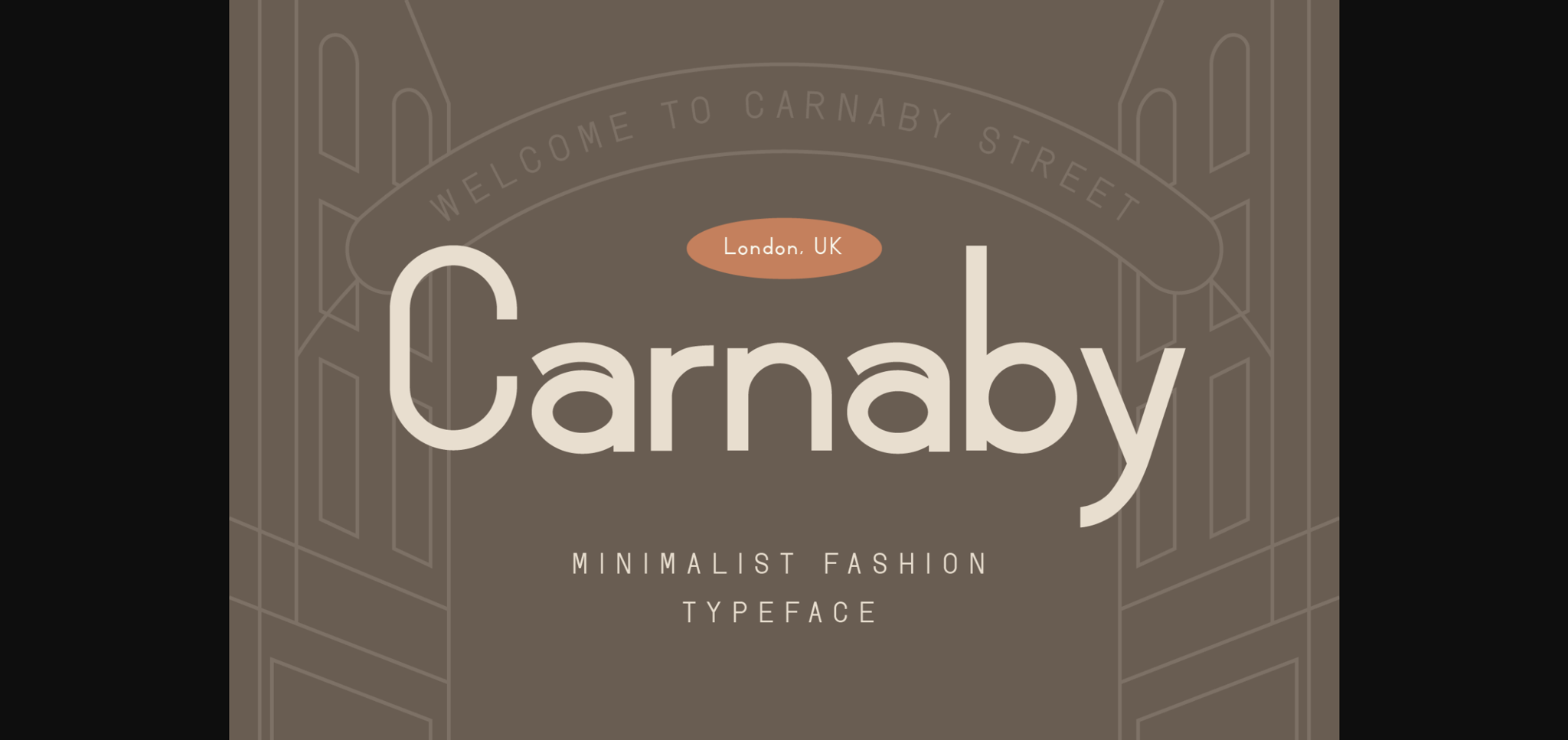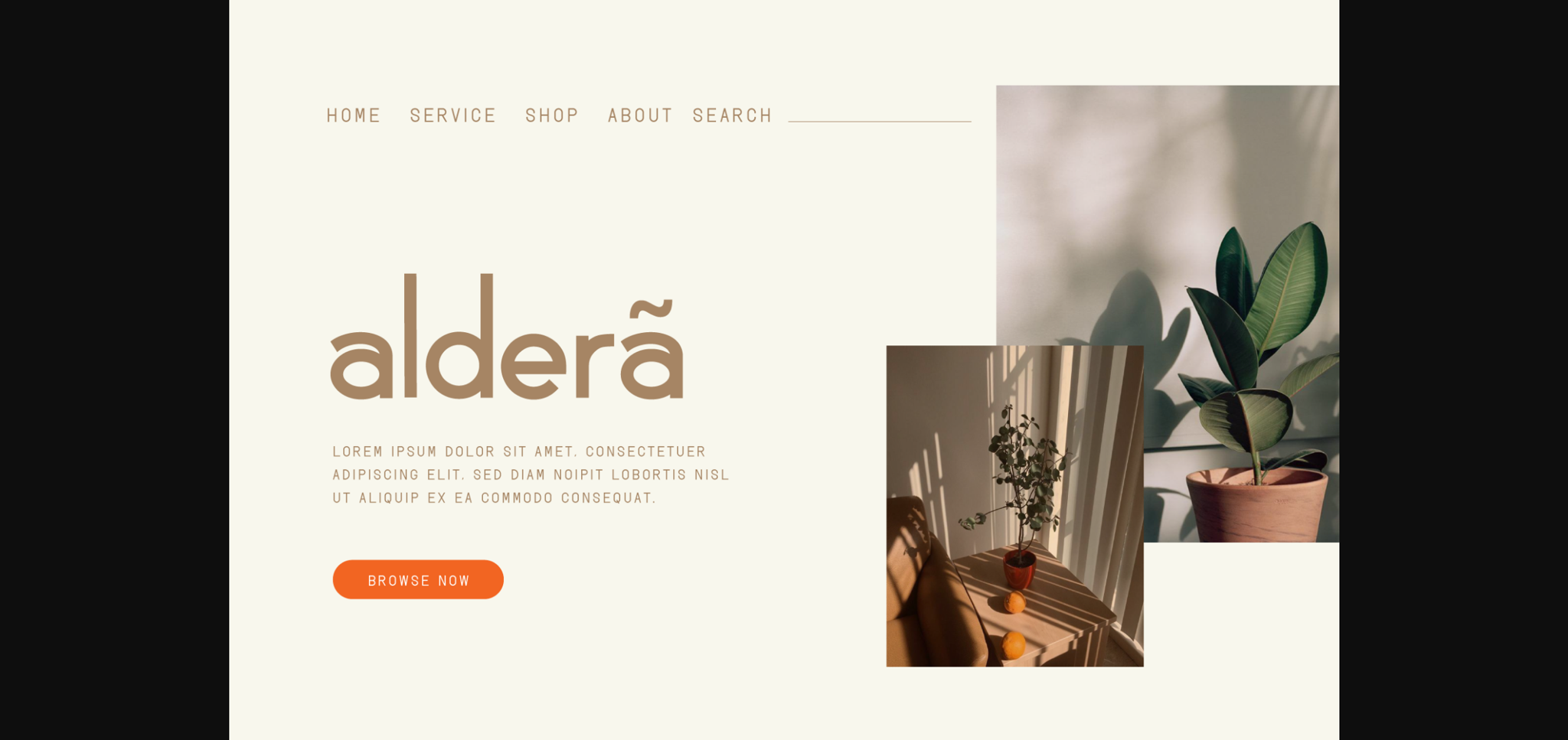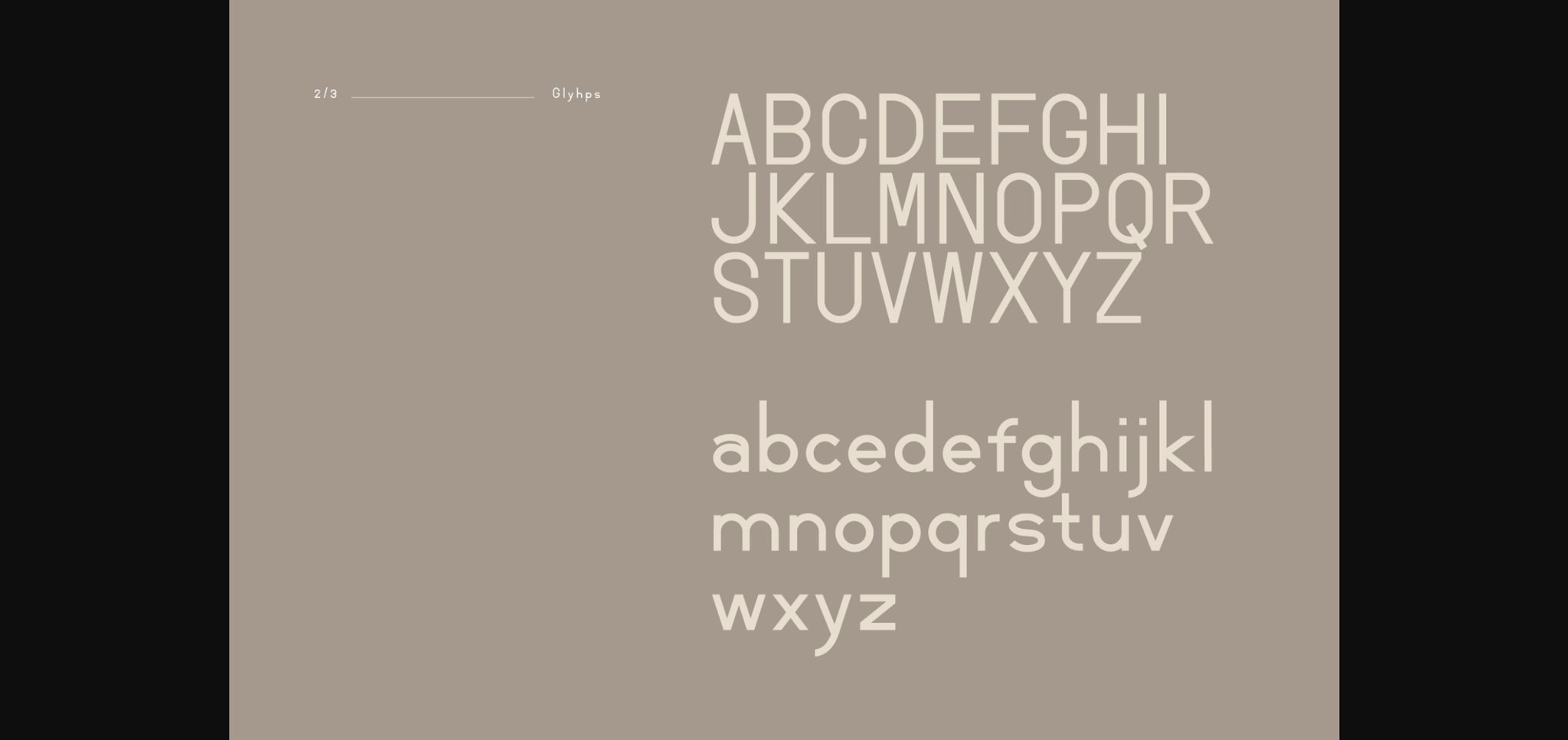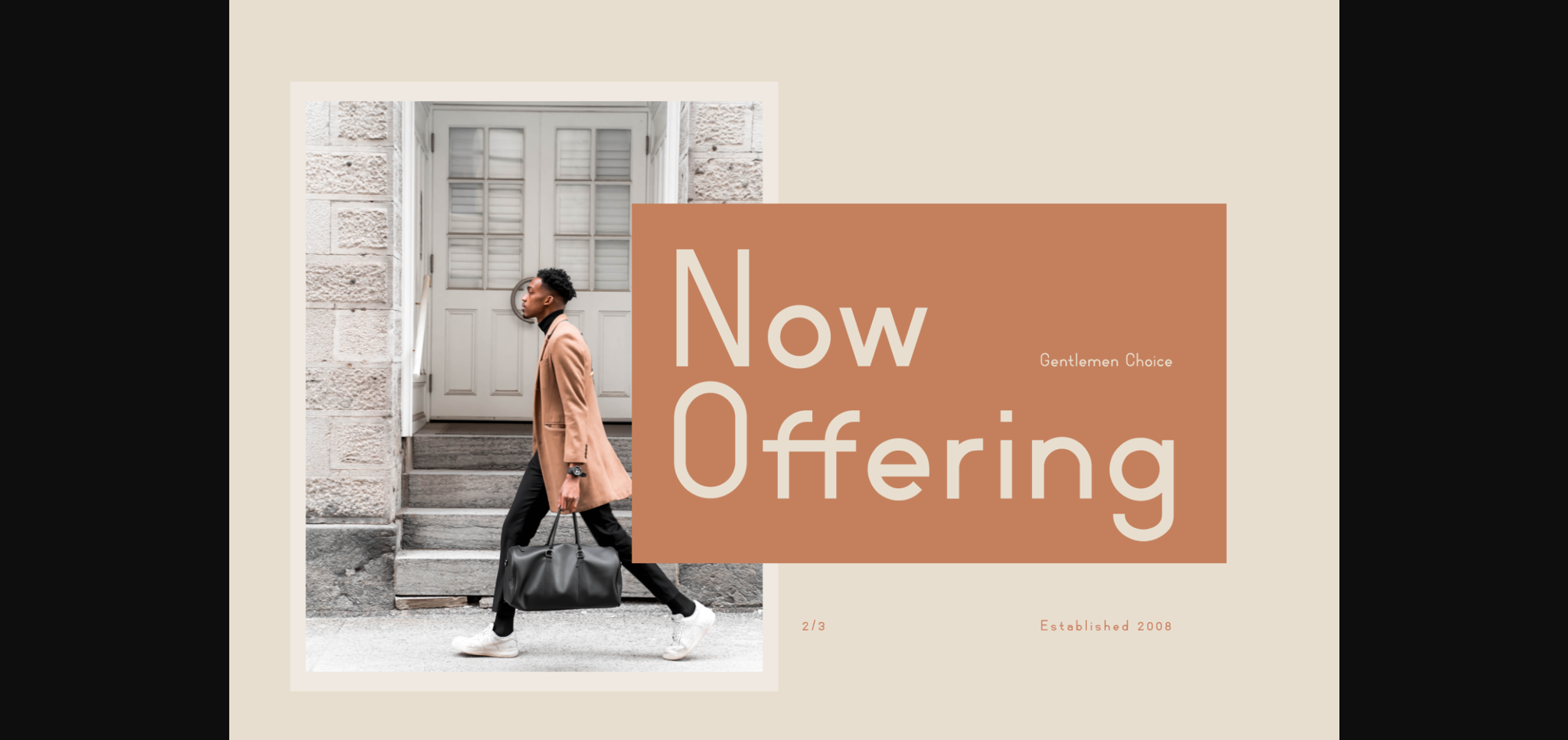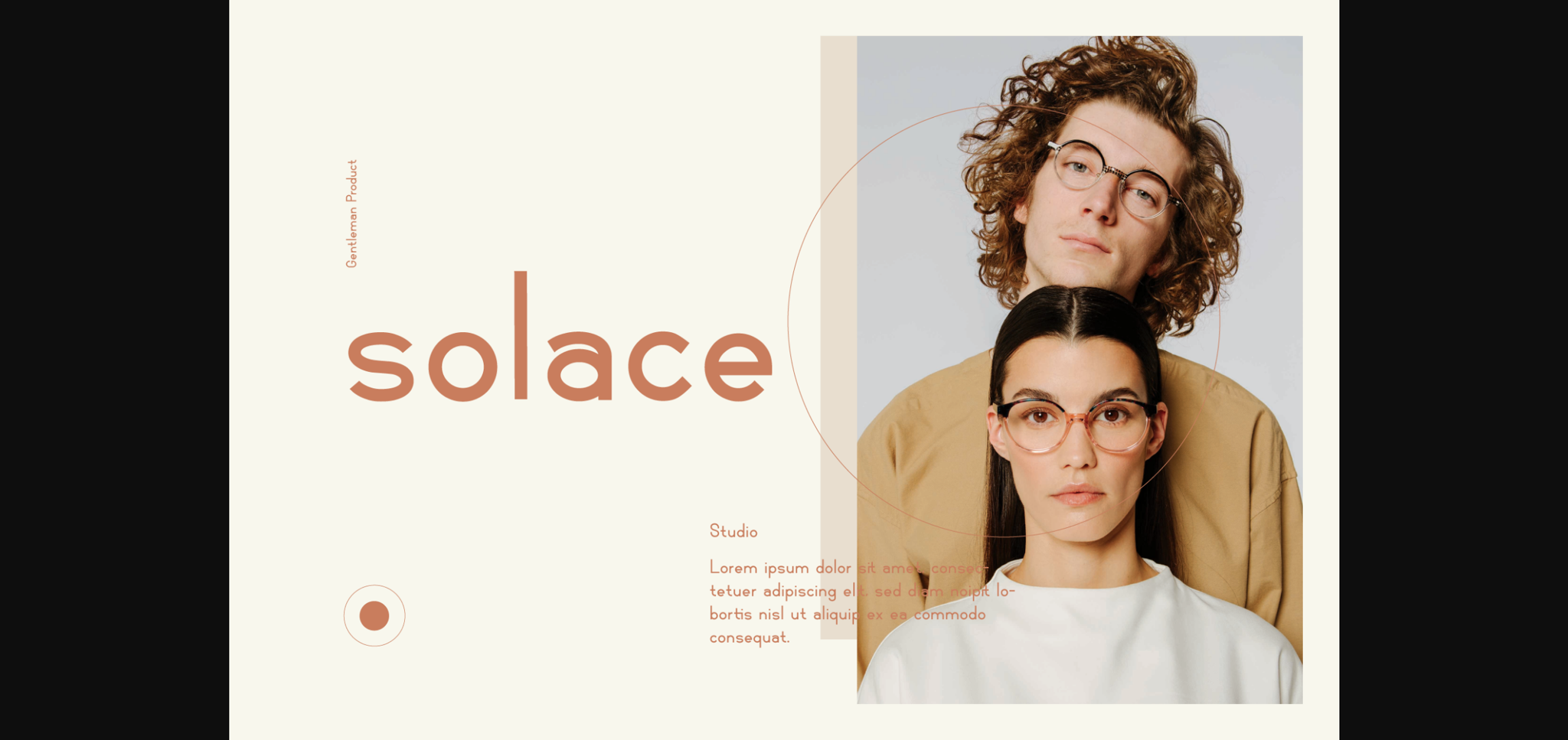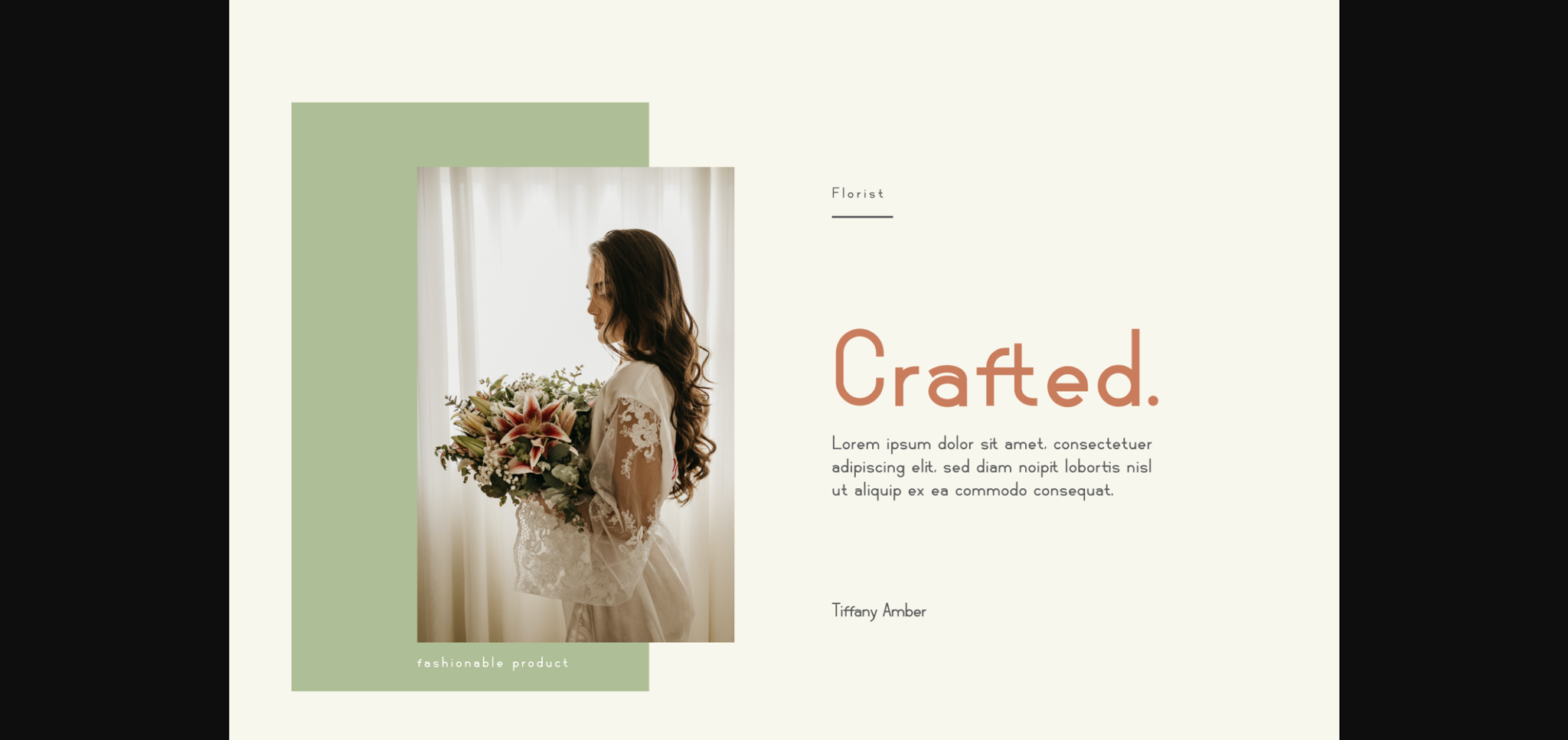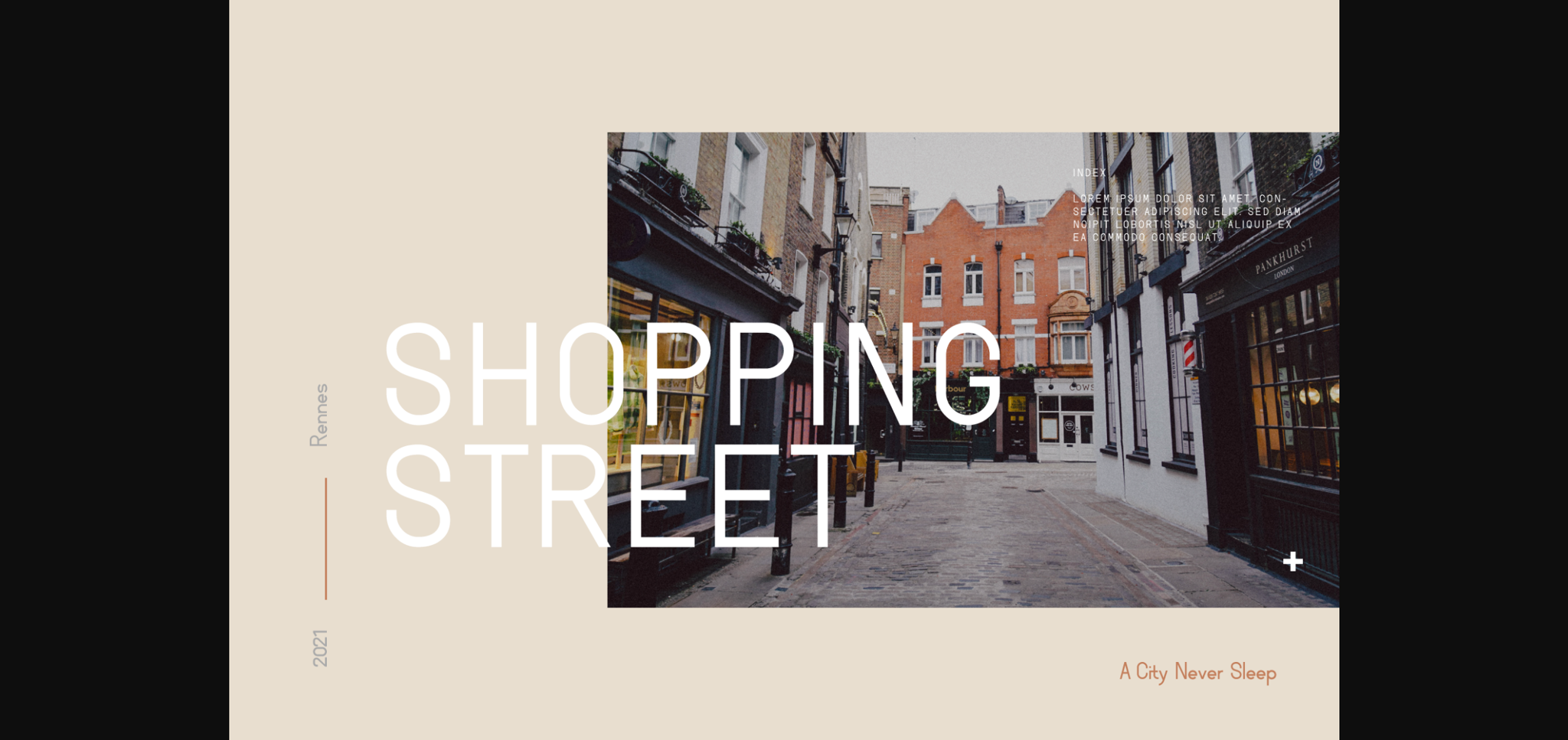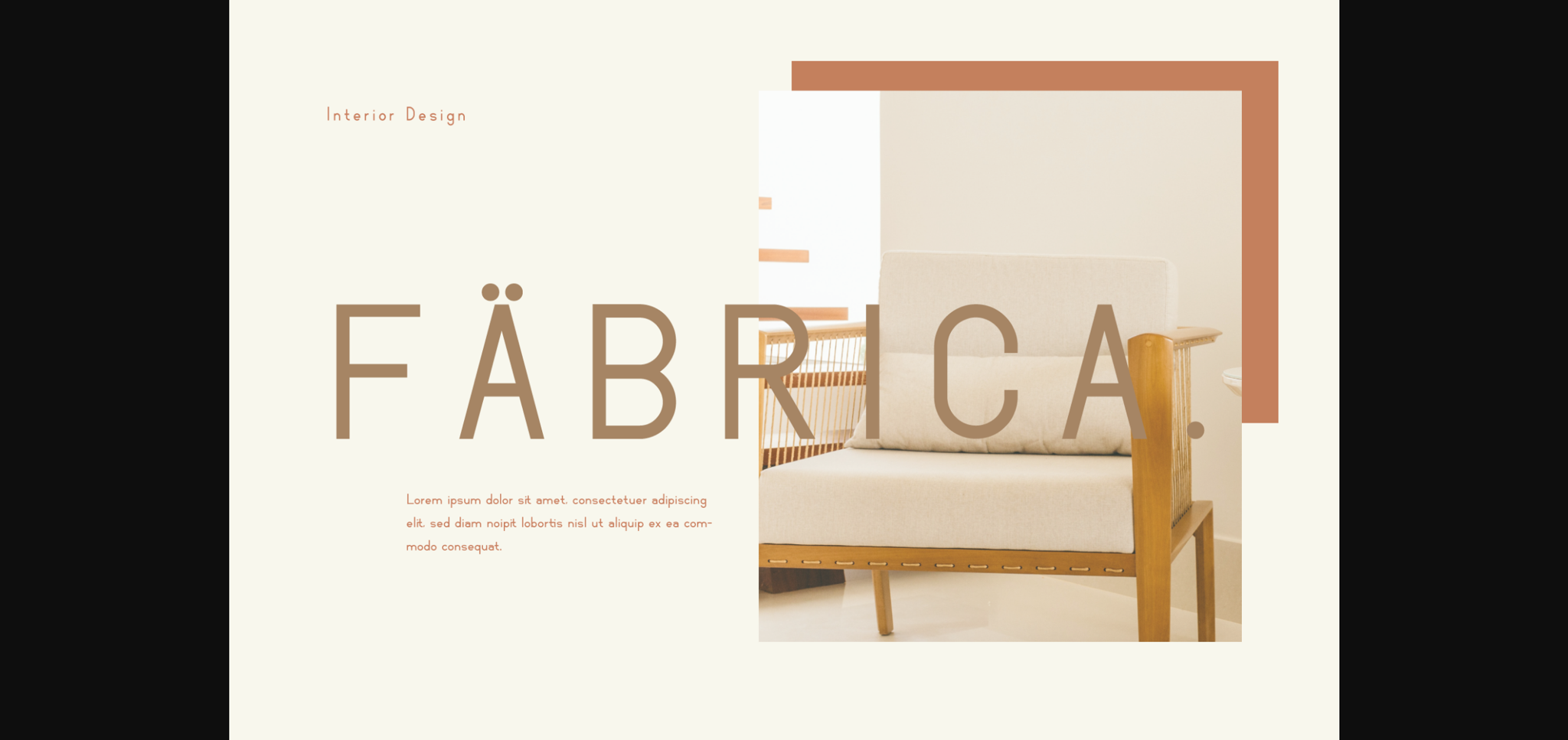
Carnaby Font
About Carnaby Font
Carnaby is a minimalist and classy sans serif font. It can be used for various designs, such as websites, advertisement, headlines and so much more.